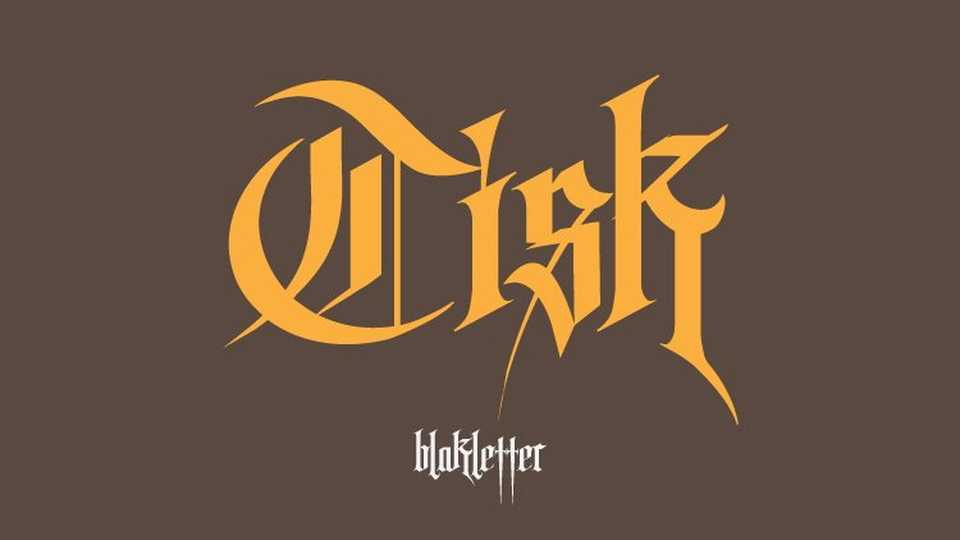
Download Tisk font, a blackletter typeface with a great and dark look. Tisk will elevate a grim range of design projects to the highest level.
Designer: ogit